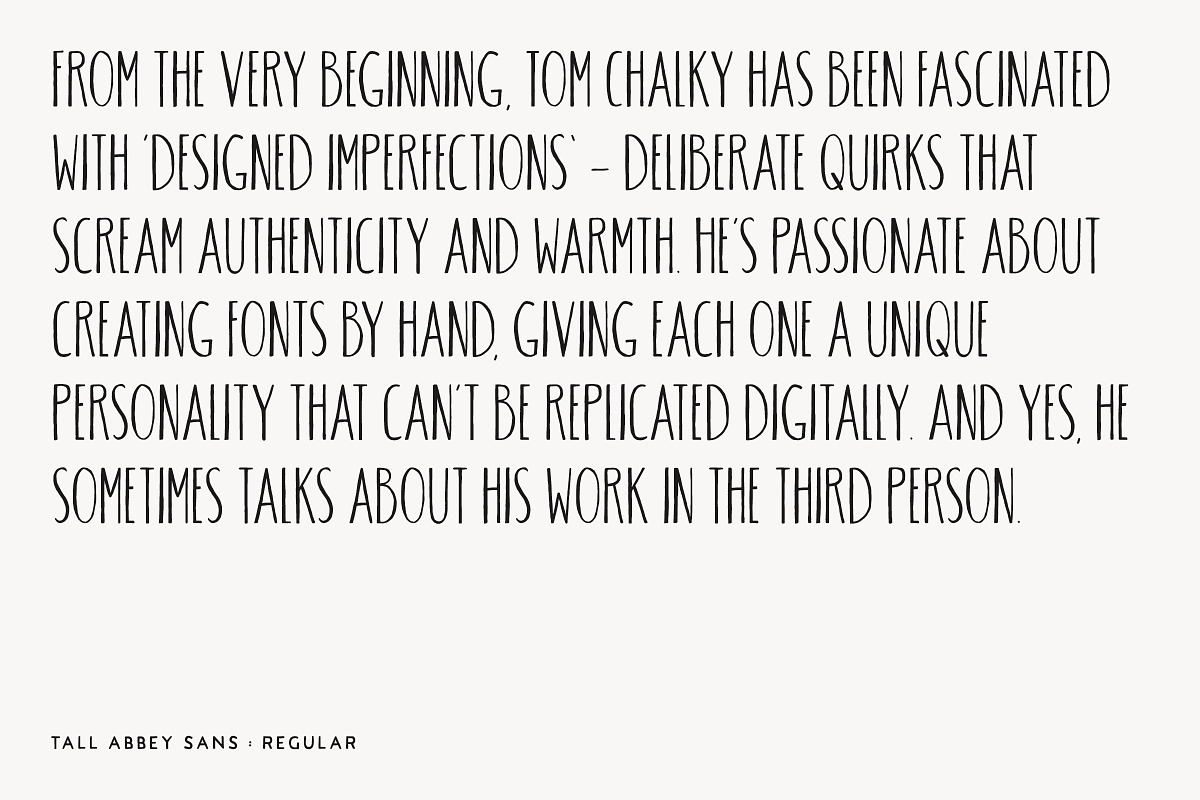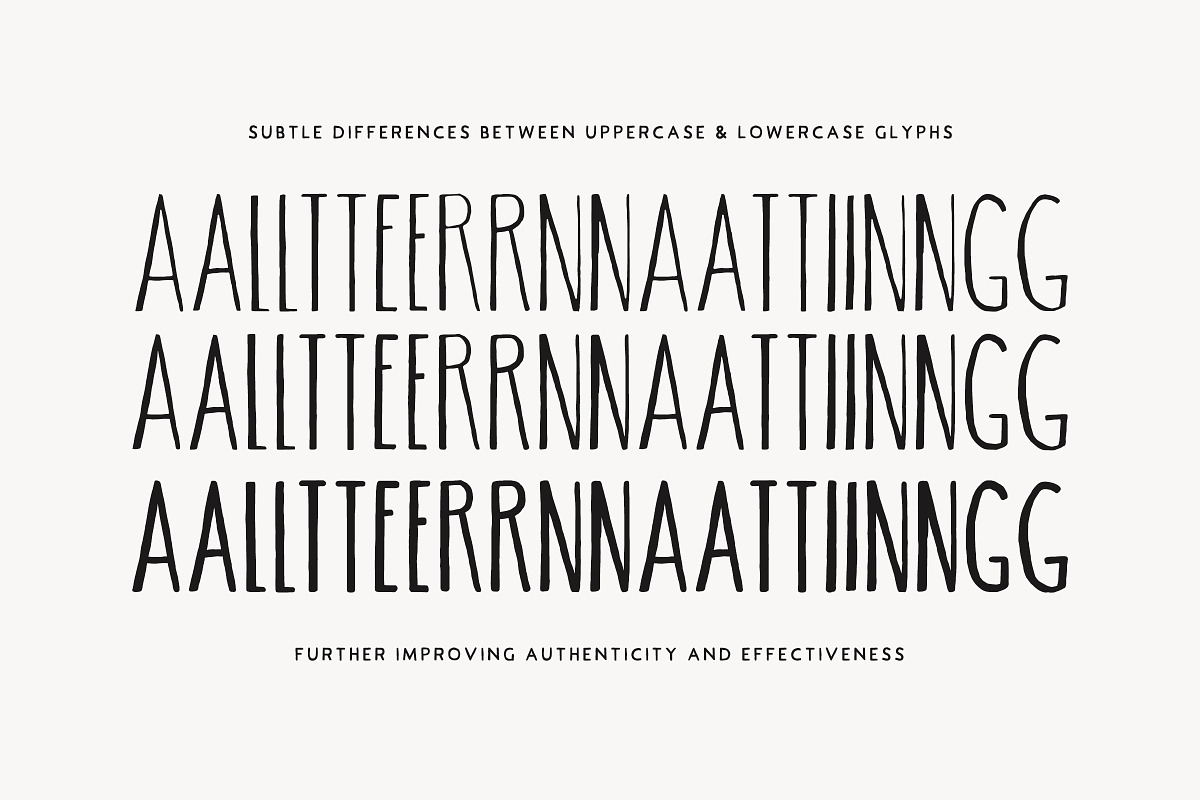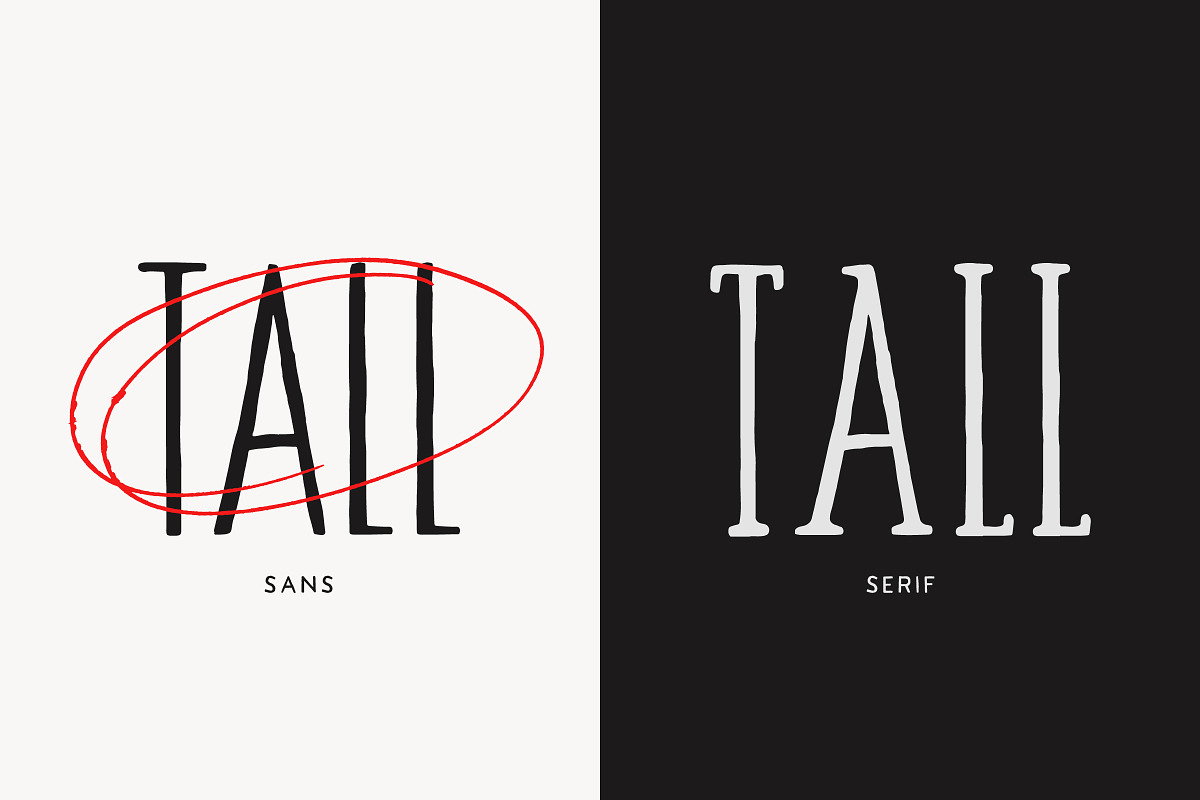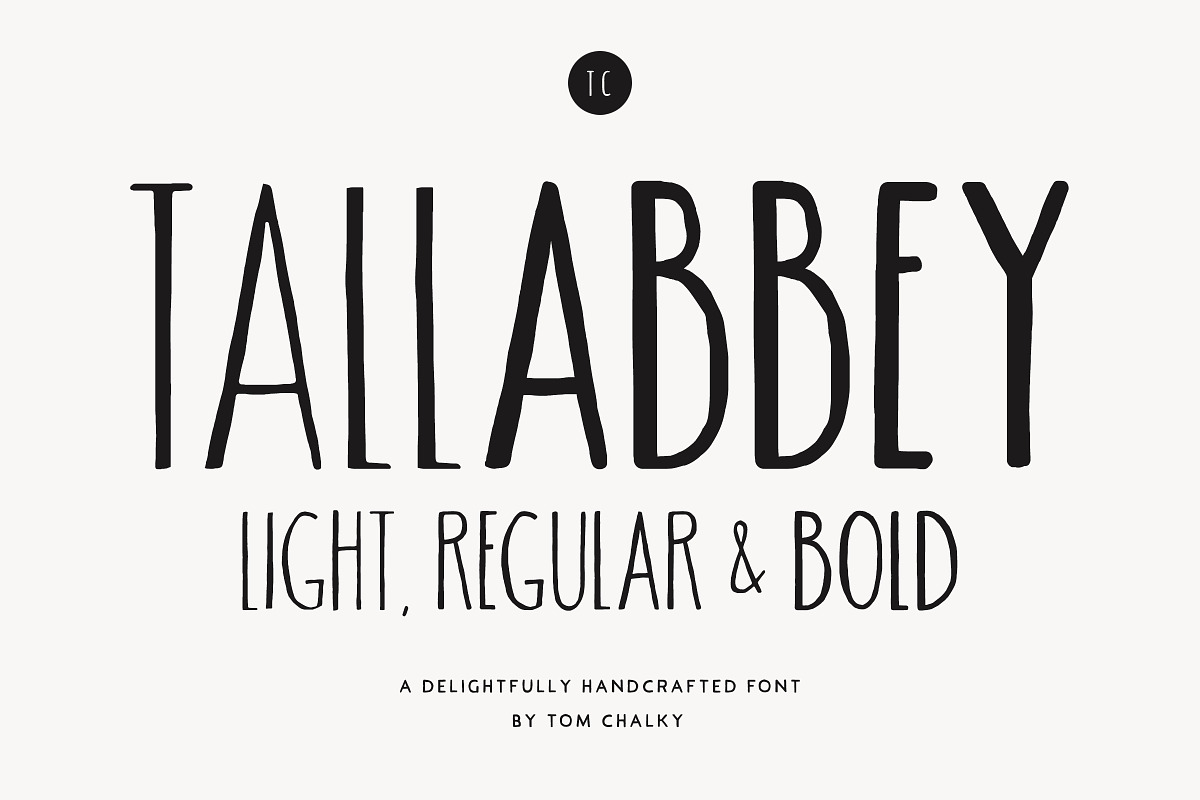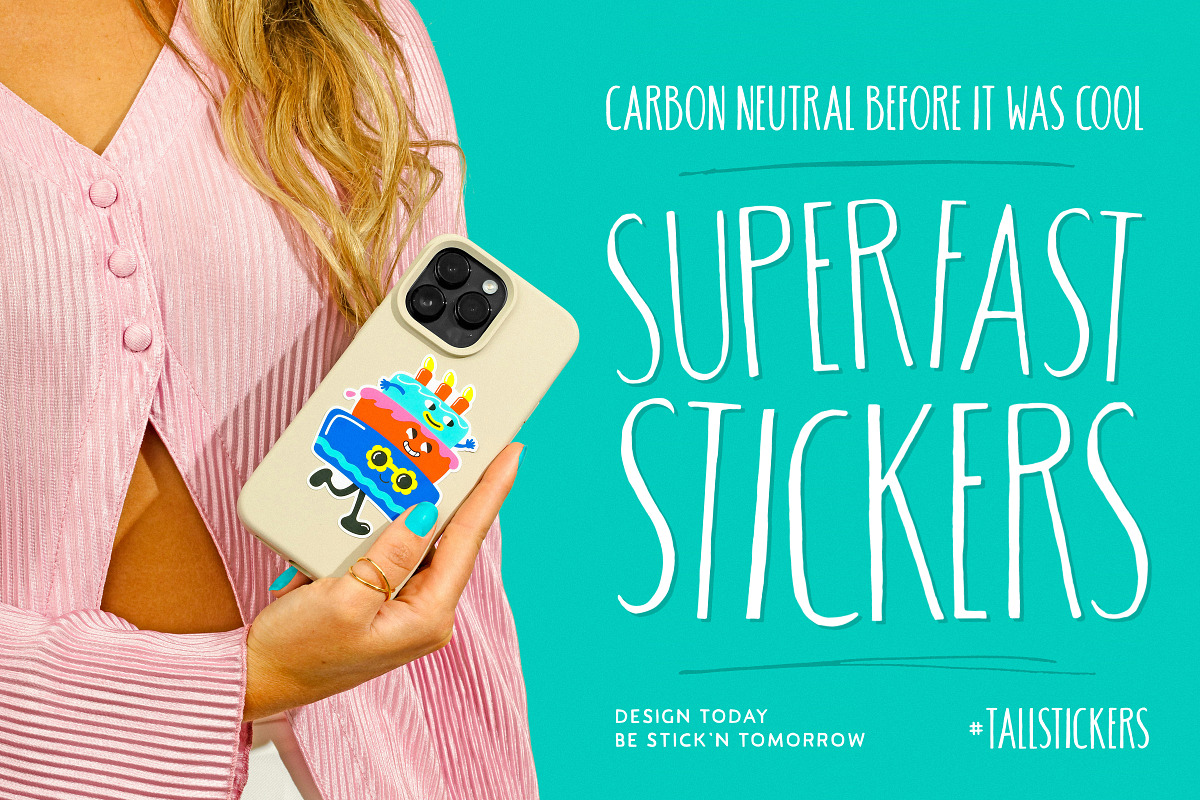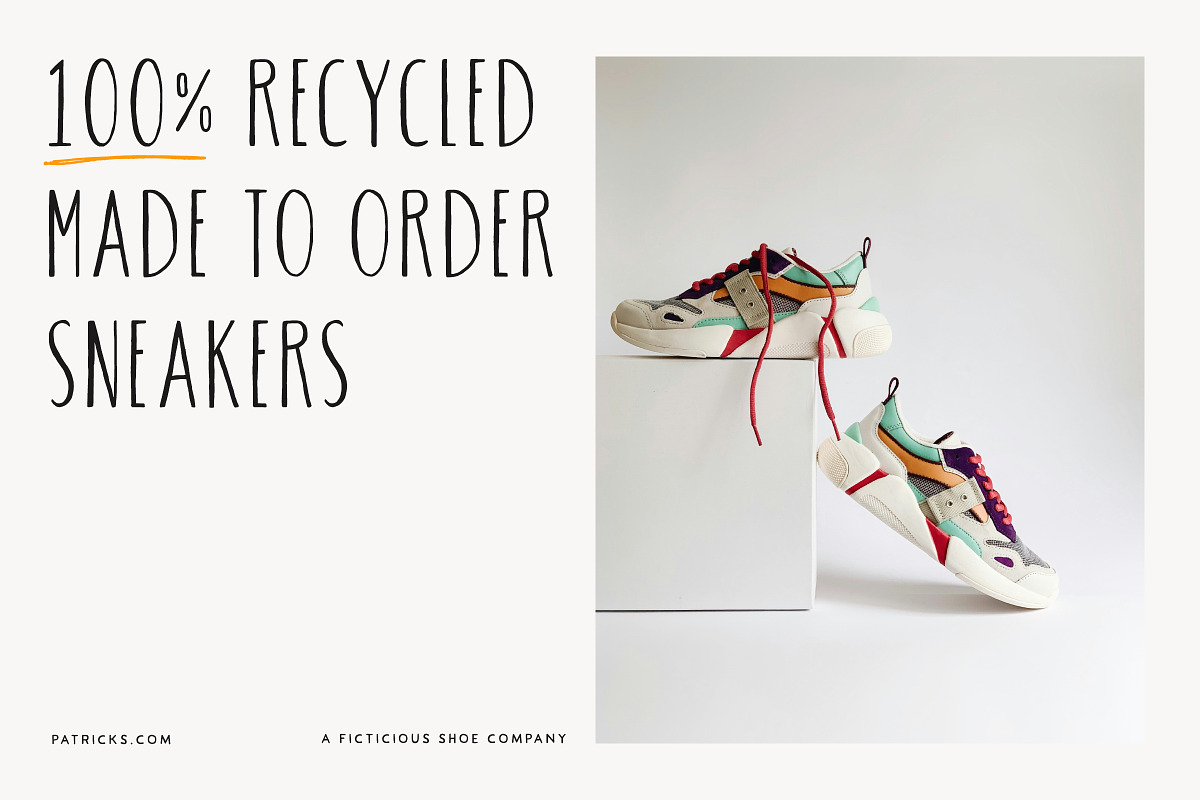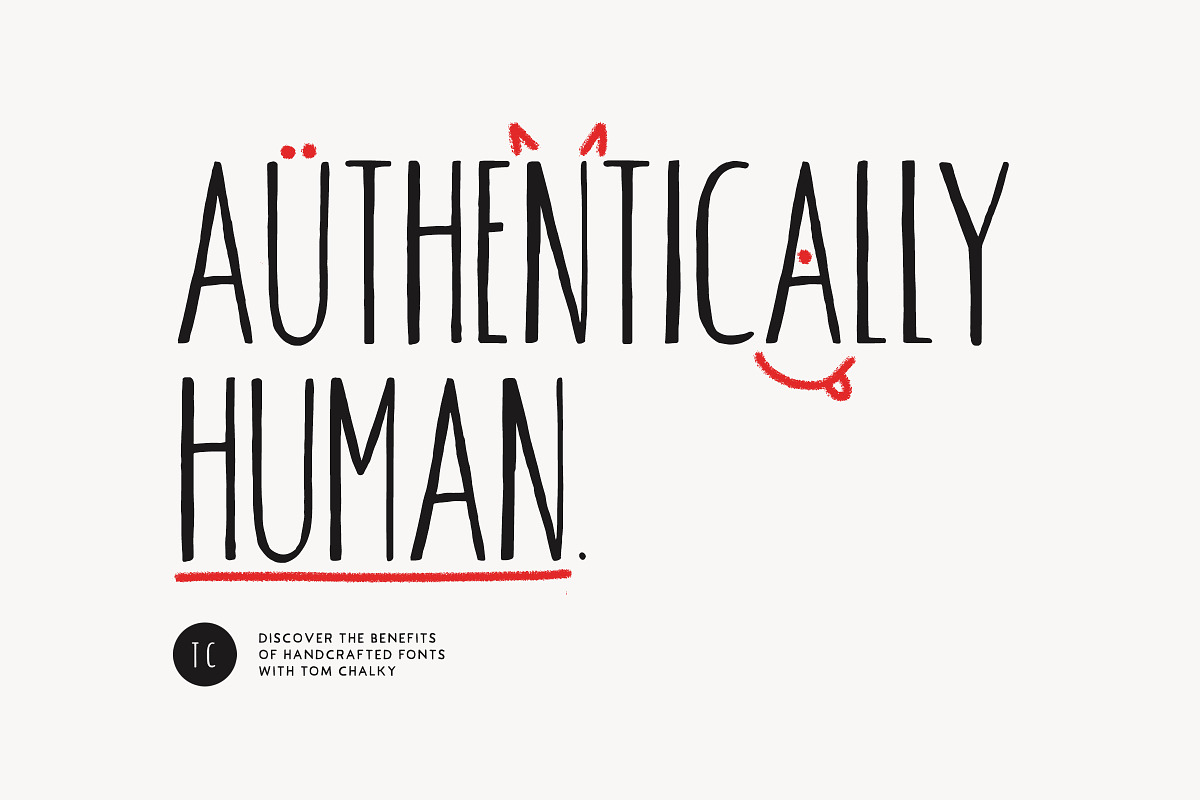
Tall Abbey Sans - Handwritten Font
Tall Abbey Sans - Handwritten Font by Tom Chalky is a font selected for branding, posters, packaging, typography.
- An entirely uppercase typeface where the lowercase glyphs offer slight variations of its counterpart, improving the handwritten effect.
- TC Tall Abbey Sans Light
- TC Tall Abbey Sans Regular
- TC Tall Abbey Sans Bold
Tall Abbey Sans - Handwritten Font by Tom Chalky fits naturally into Branding, posters, packaging, typography.